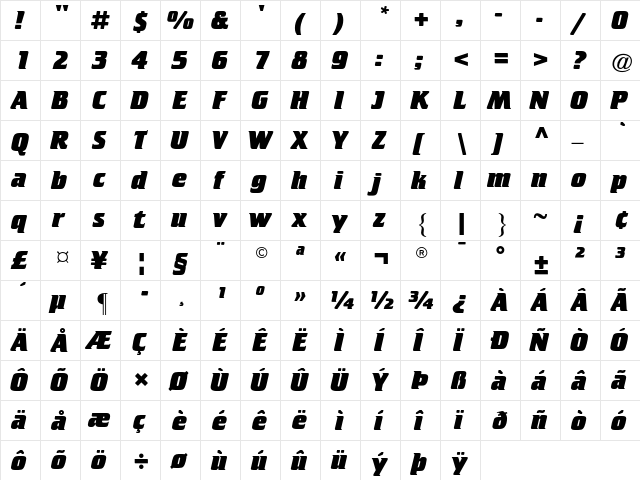
Crillee AT ExtraBold Italic Regular Font Preview
Design Context for Crillee AT ExtraBold Italic Typeface
Crillee AT ExtraBold Italic takes a measured approach to typography — its balanced proportions and neutral character make it a reliable workhorse for both digital and print work. Its italic angle brings a sense of urgency and motion to the letterforms. Its bold stroke weight gives it real presence on the page.
Pro Tip: Use Crillee AT ExtraBold Italic for emphasis, pull quotes, and subheadings where its slanted energy can add rhythm to the layout.